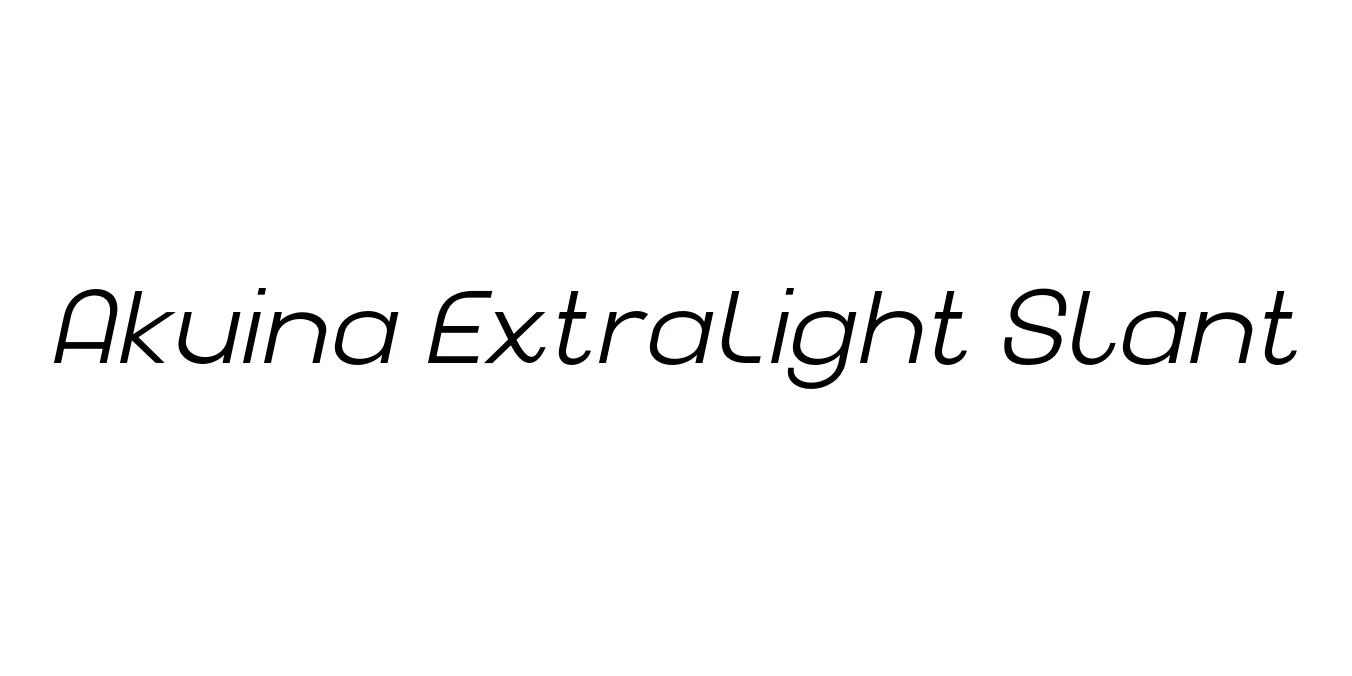
Akuina ExtraLight Slant
Designed by Atipo
Akuina ExtraLight Slant is a sophisticated iteration of the larger Akuina type family, meticulously crafted by the renowned design studio Atipo. It embodies a modern, minimalist aesthetic characterized by its slender strokes and dynamic posture. This typeface is part of a versatile family known for its geometric clarity and subtle humanistic touches, making it an exceptional choice for contemporary design projects that require a delicate balance of elegance and readability.
The ExtraLight Slant weight is particularly effective in editorial design and high-end branding environments. Its subtle italicized lean adds a sense of motion and forward-thinking energy without sacrificing the clean lines that define the overall typeface. Whether used for pull quotes in digital magazines or sophisticated headers on a portfolio website, Akuina provides a distinctive visual voice that feels both timeless and cutting-edge.
Akuina ExtraLight Slant Best Uses
Perfect for magazines, journals, and digital publications that require a clean, sophisticated look.
Ideal for high-fashion, architecture, or tech brands looking for a minimalist visual identity.
Adds a dynamic and modern feel to website hero sections and large, impactful headers.
Akuina ExtraLight Slant Glyphs